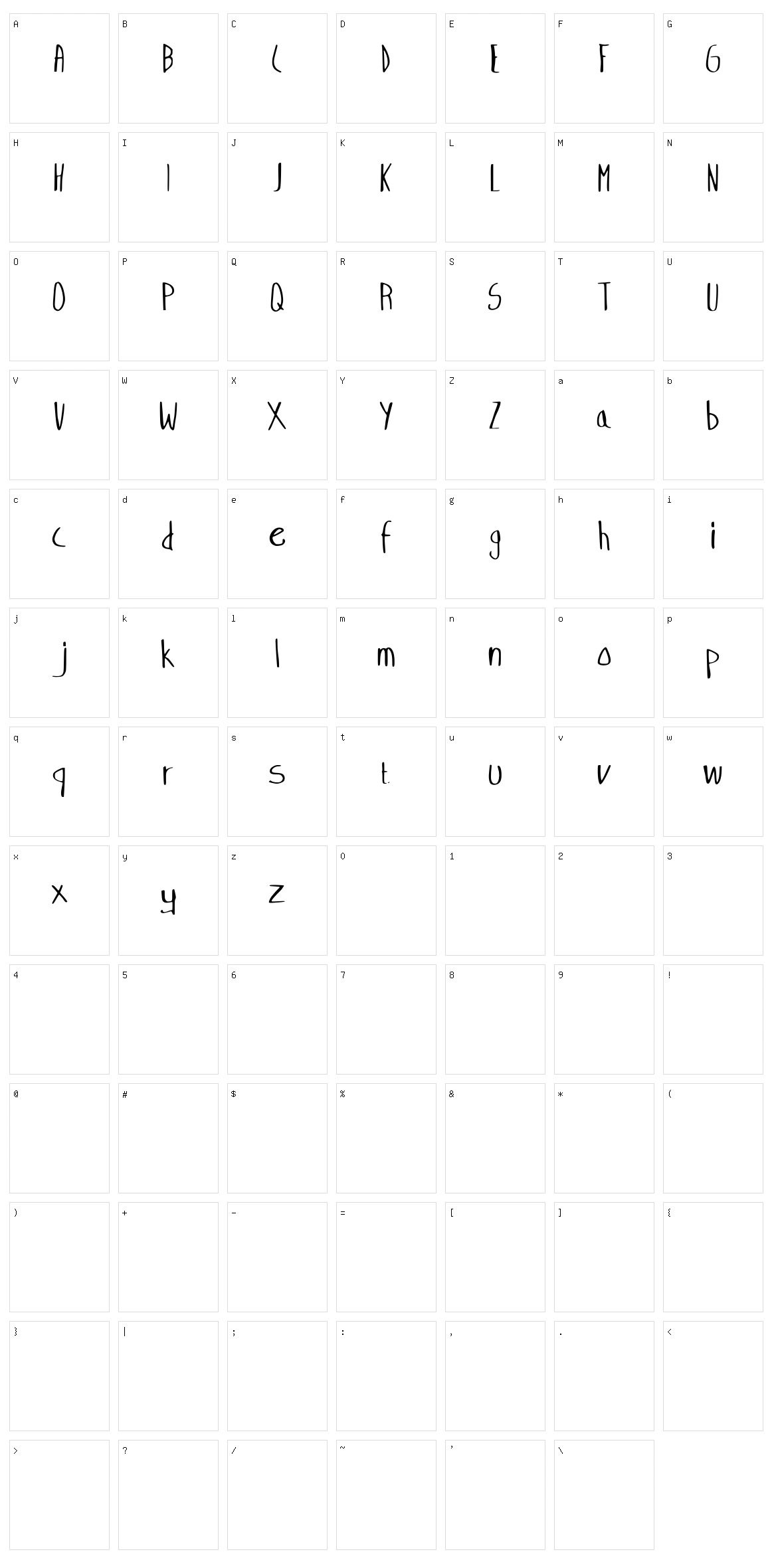
The free font Freemind is carefully designed by Samson Tennela, showcasing a thoughtful balance of creativity and usability and falls under the Script font style. When you download the ZIP file, it contains only 16.41 KB of font files, making it lightweight and quick to download. Please review the license details below to understand permitted usage and distribution rights. If license information is not available, we recommend using this font for personal projects only or contacting the author directly for commercial usage permissions.